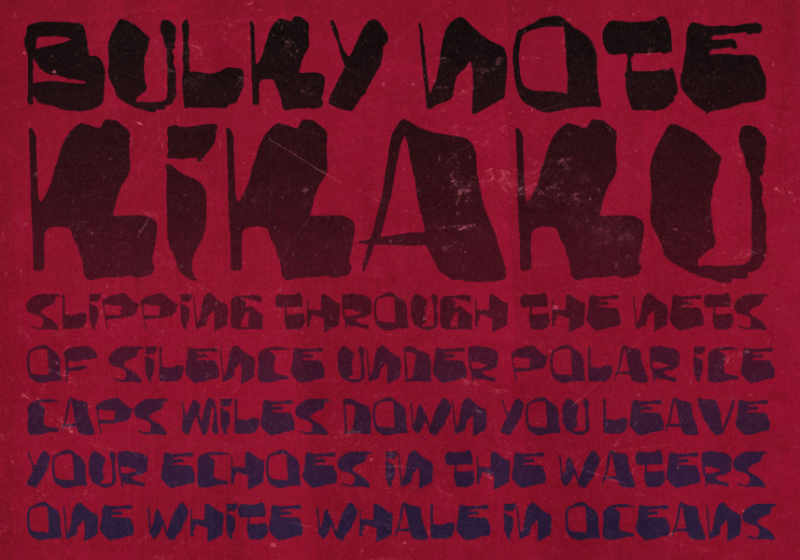
Preview and download AD Bulky Note Font. Created by Alex Dukal in Script Brush styles with Free for personal use license.
Bulky Note is a casual experimental typography, created with a Chinese brush to be used in a poster, but could work pretty well in any other situation requiring impact. Please be sure to read the license before any use of the font. It's free on personal non commercial stuff. |